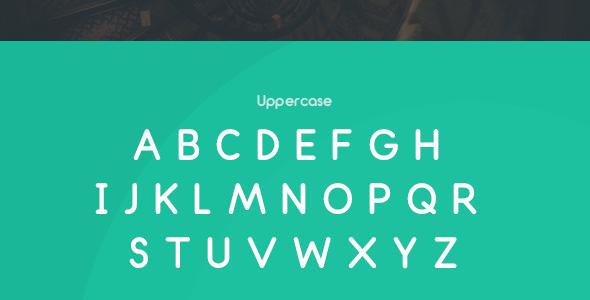
Roundly Typeface
Roundly was created with geometry and rounded corners to create a friendly typeface designed to look modern and friendly. This monoline sans-serif is very versatile and is suitable for use on flyers, posters, shirts, websites, logos and much more. The typeface works well at small sizes but works best at larger sizes such as headings. It’s modern and friendly aesthetic makes it a great choice for designers and nondesigners alike. Each character has been manually kerned according to the shape of the letter to ensure your text looks great and visually spaced. The low ascender and descenders along with the circular type forms add character to the typography making it instantly recognisable. Thanks for looking, and let me know if you have any questions!